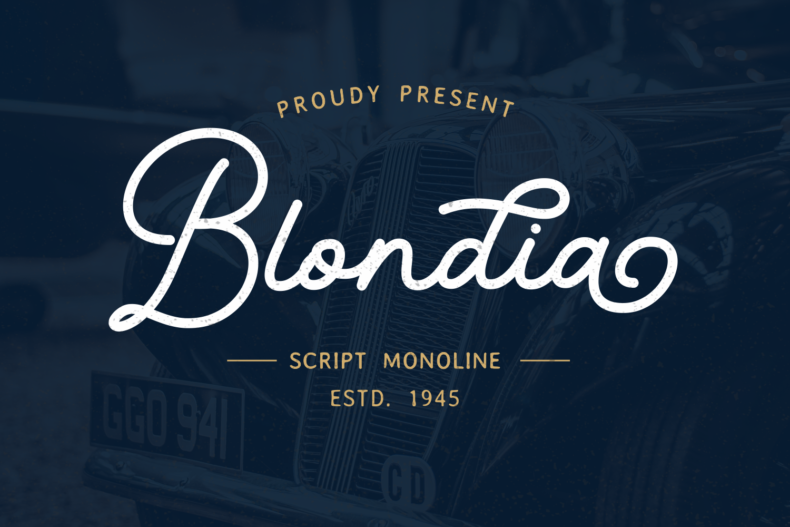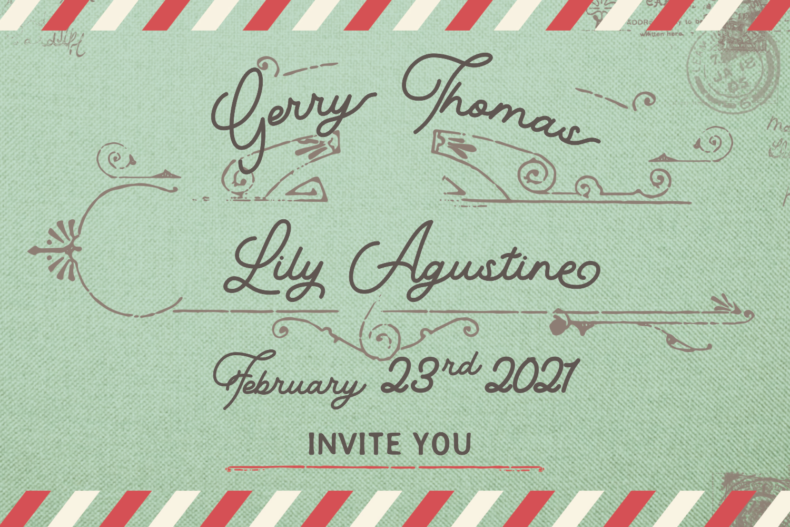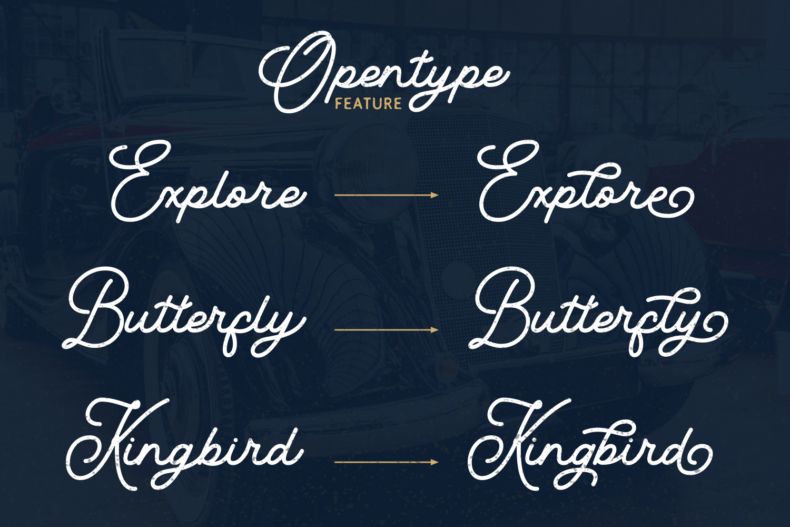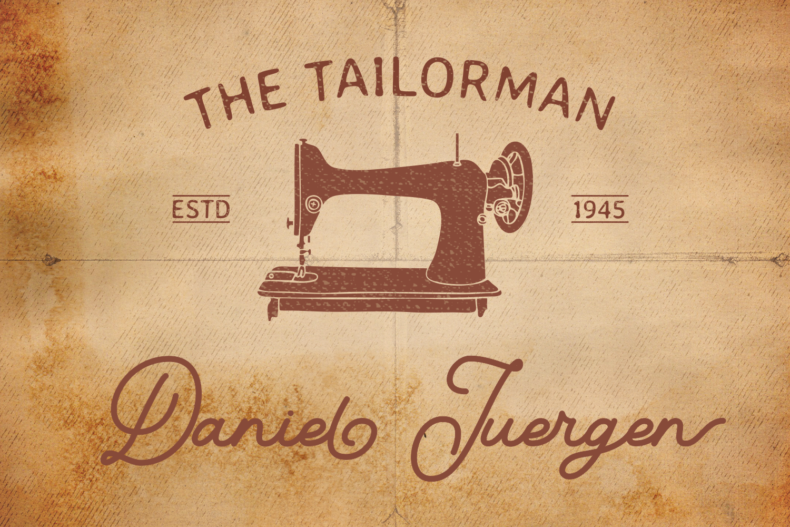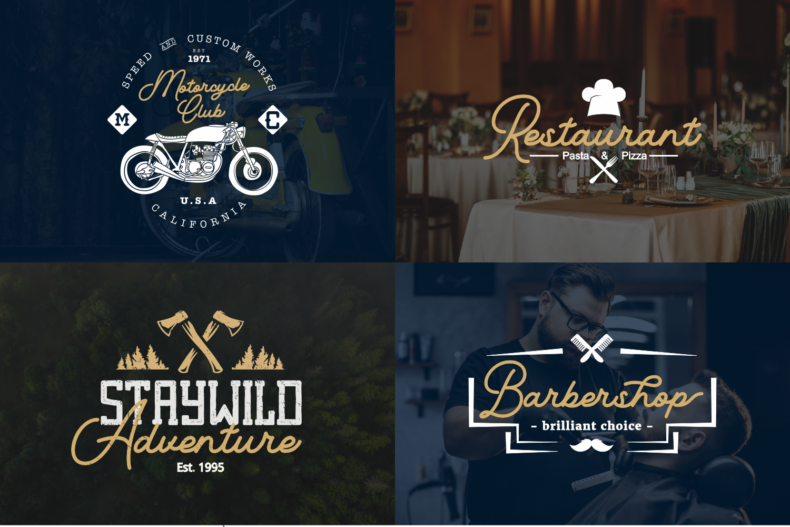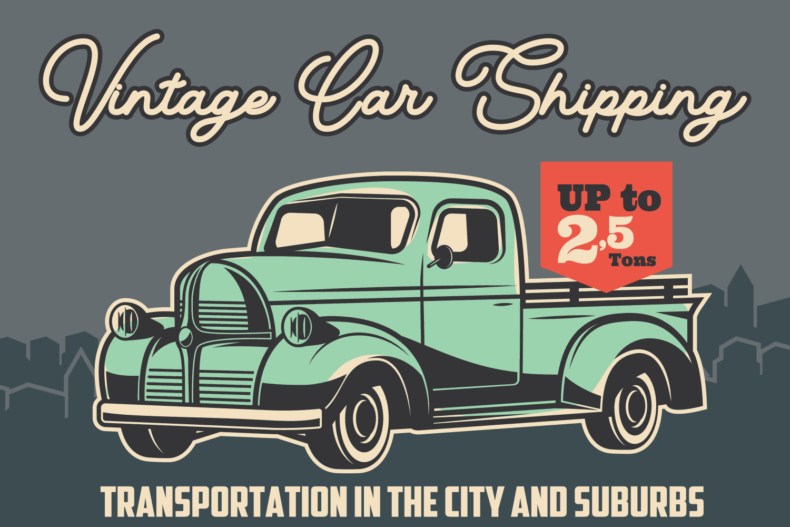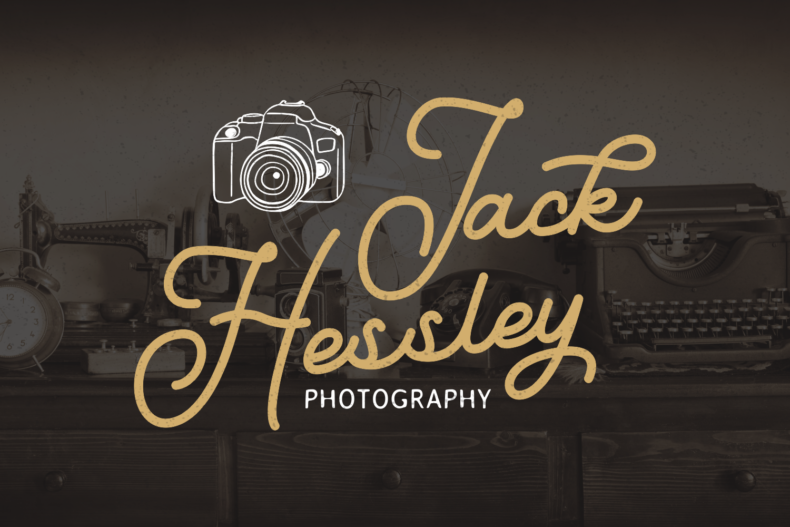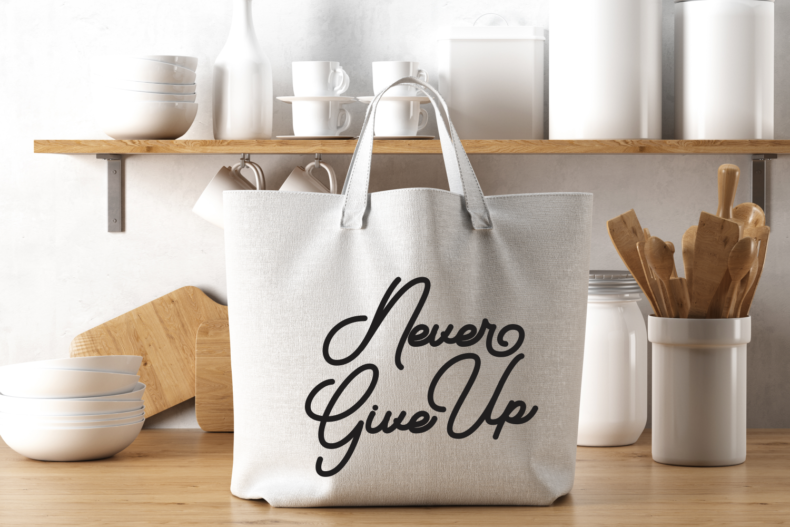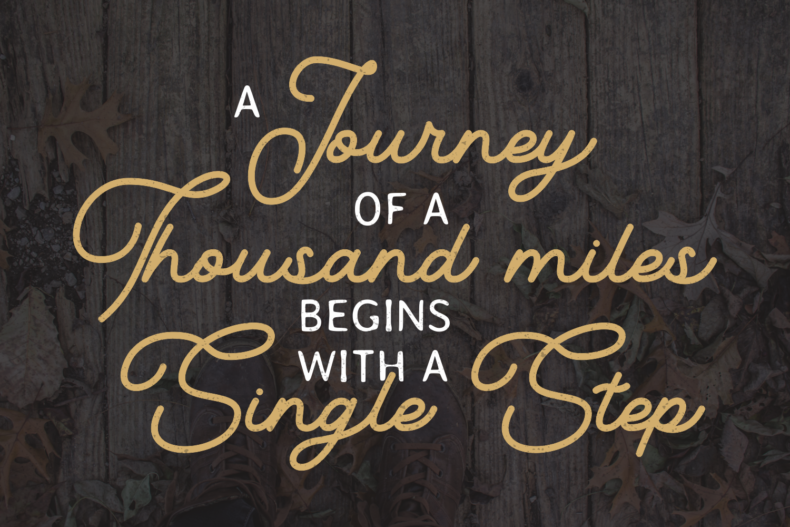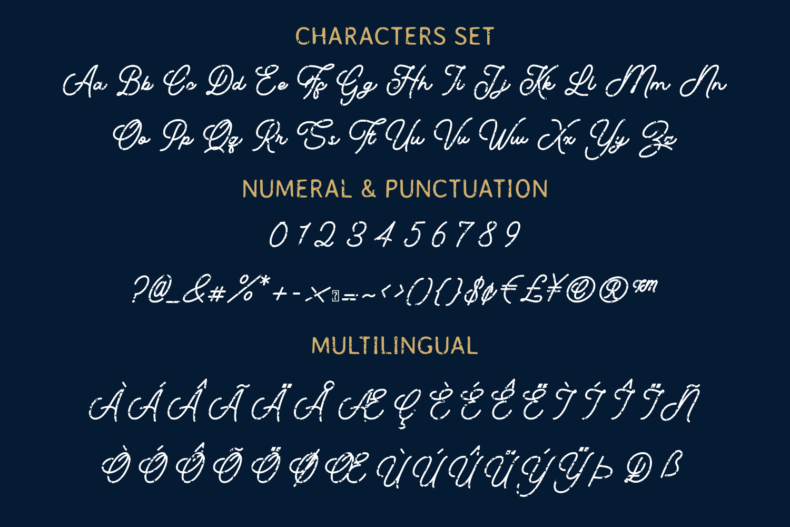
Blondia, Elegant Vintage Monoline Script
Say hello to Blondia, monoline script font that work perfectly for vintage but also applicable for modern style. Bravely will work perfectly for vintage, brands, trend blogs, boutiques, tattoo or any business that wants to appear classic and elegant.